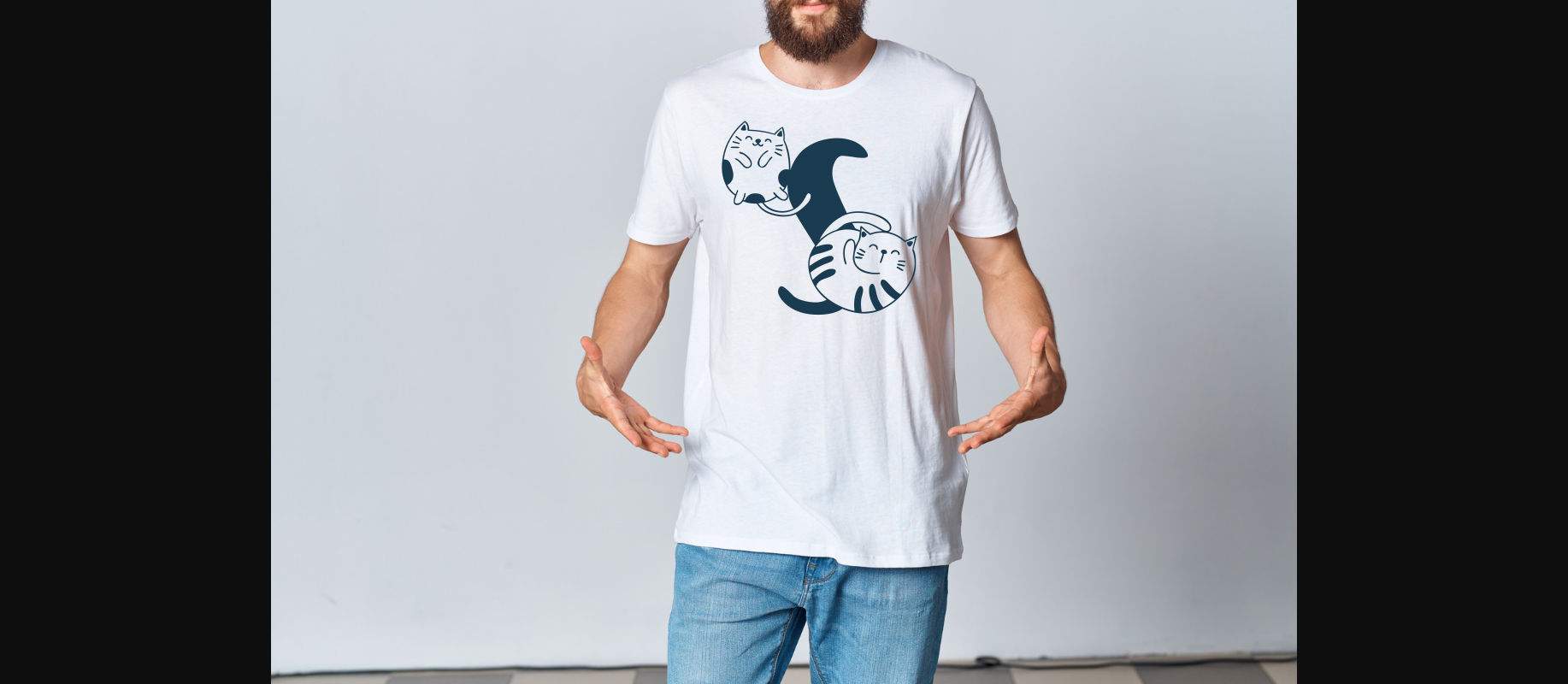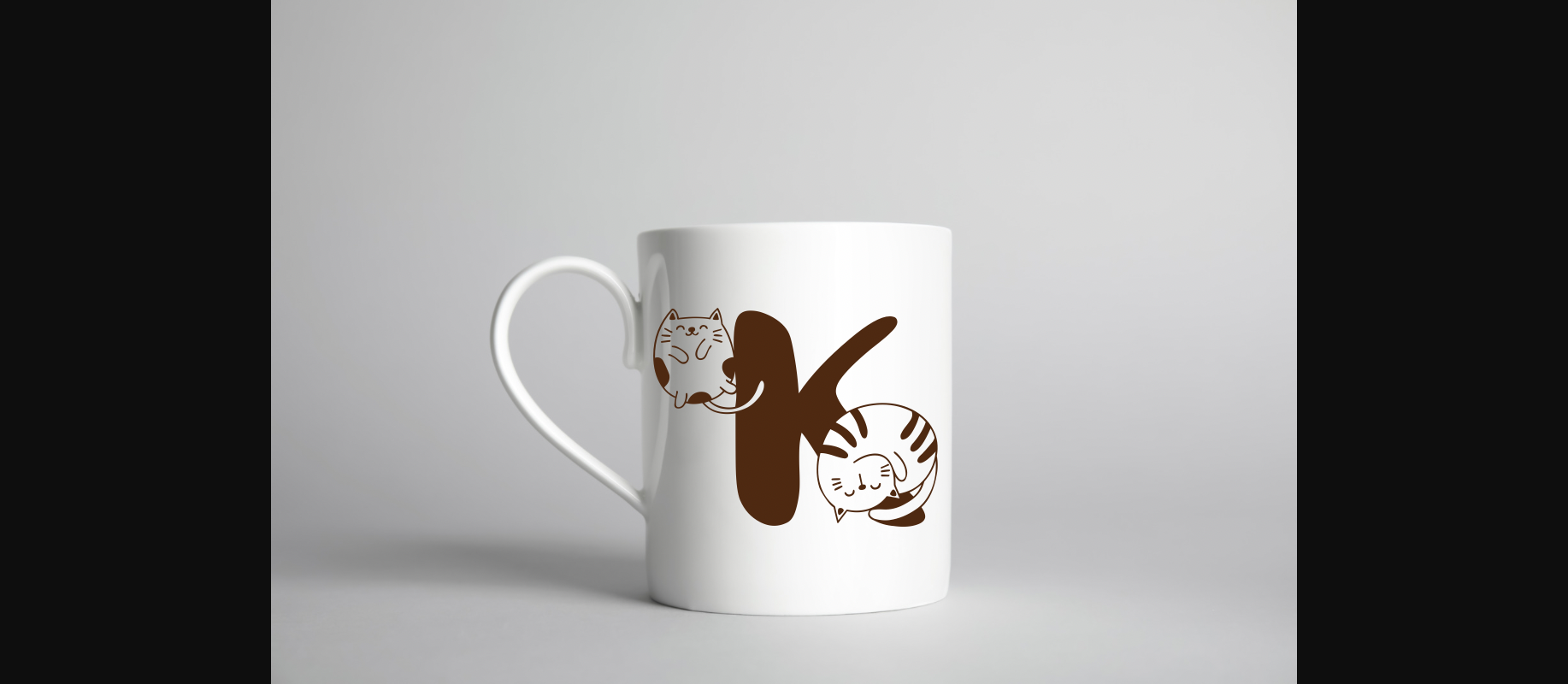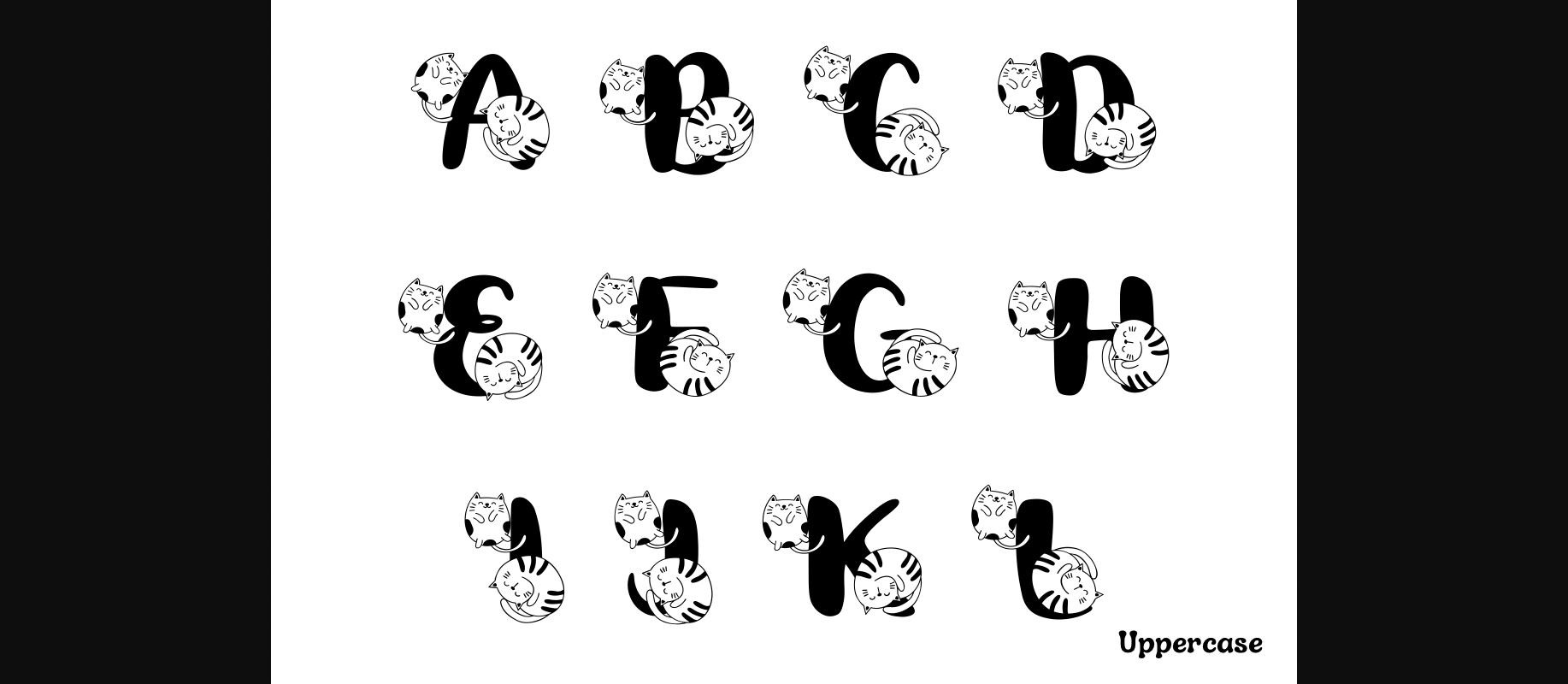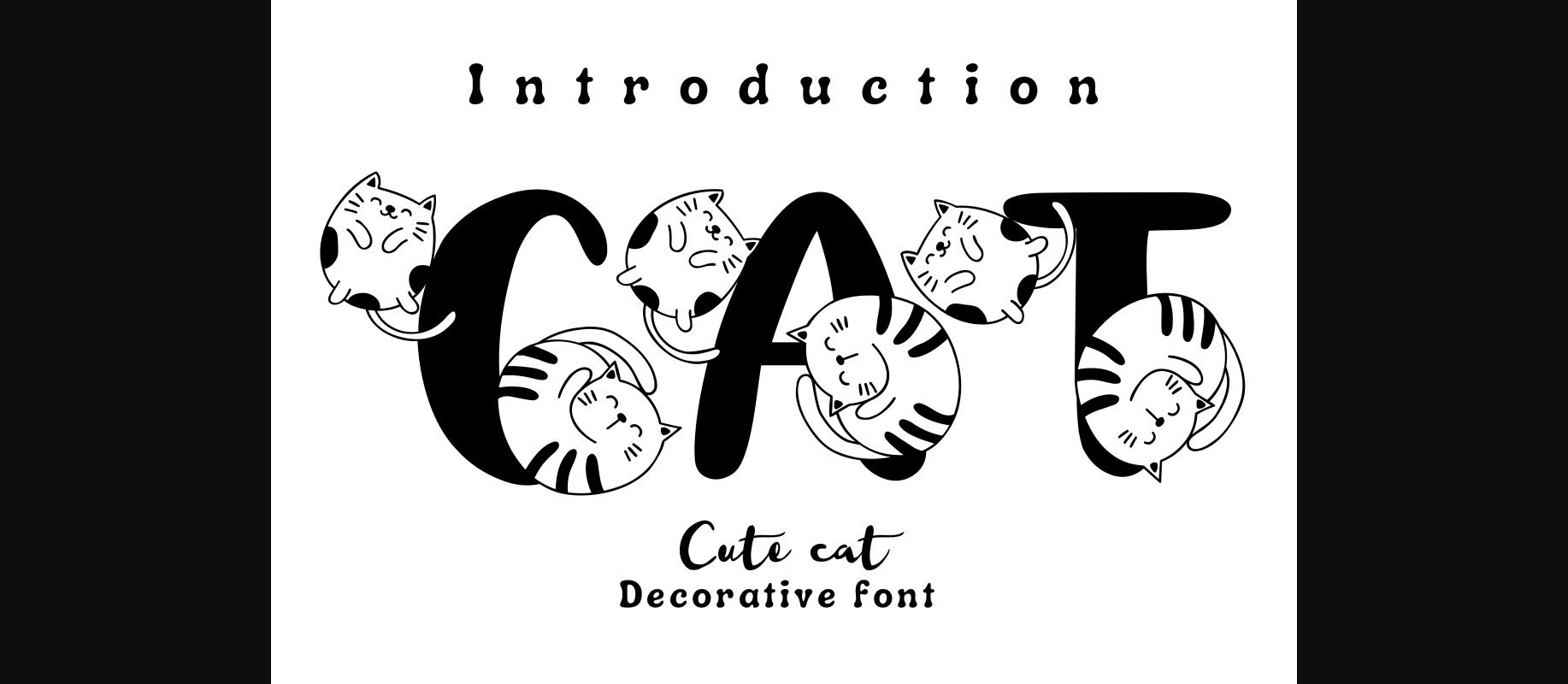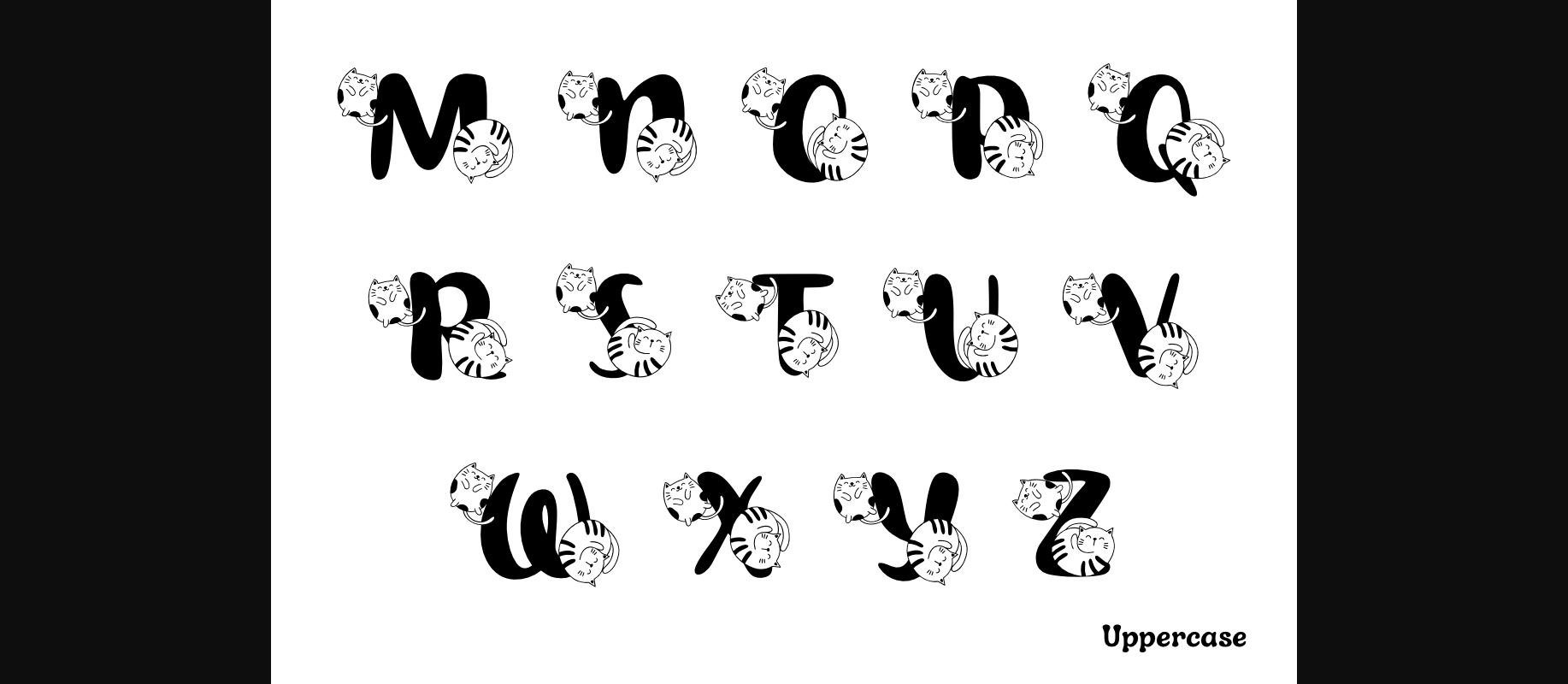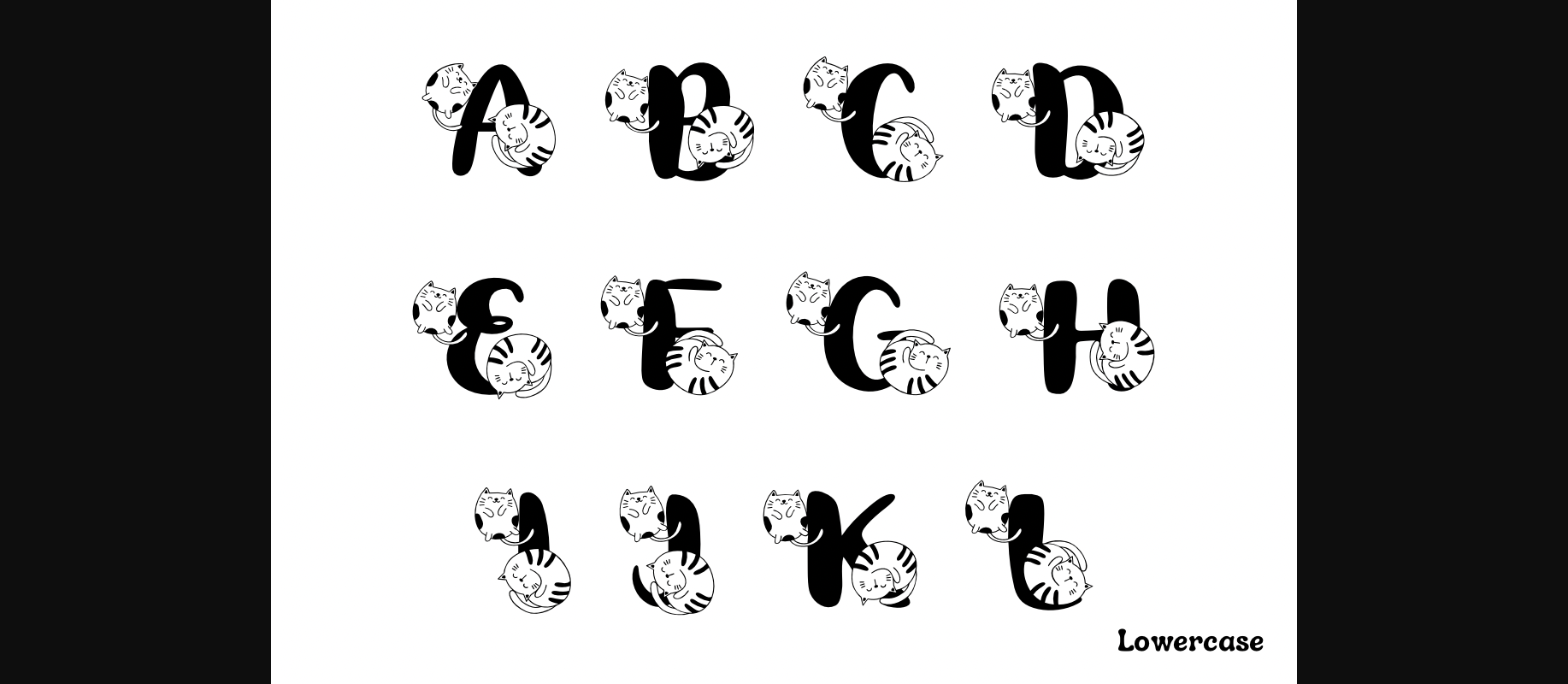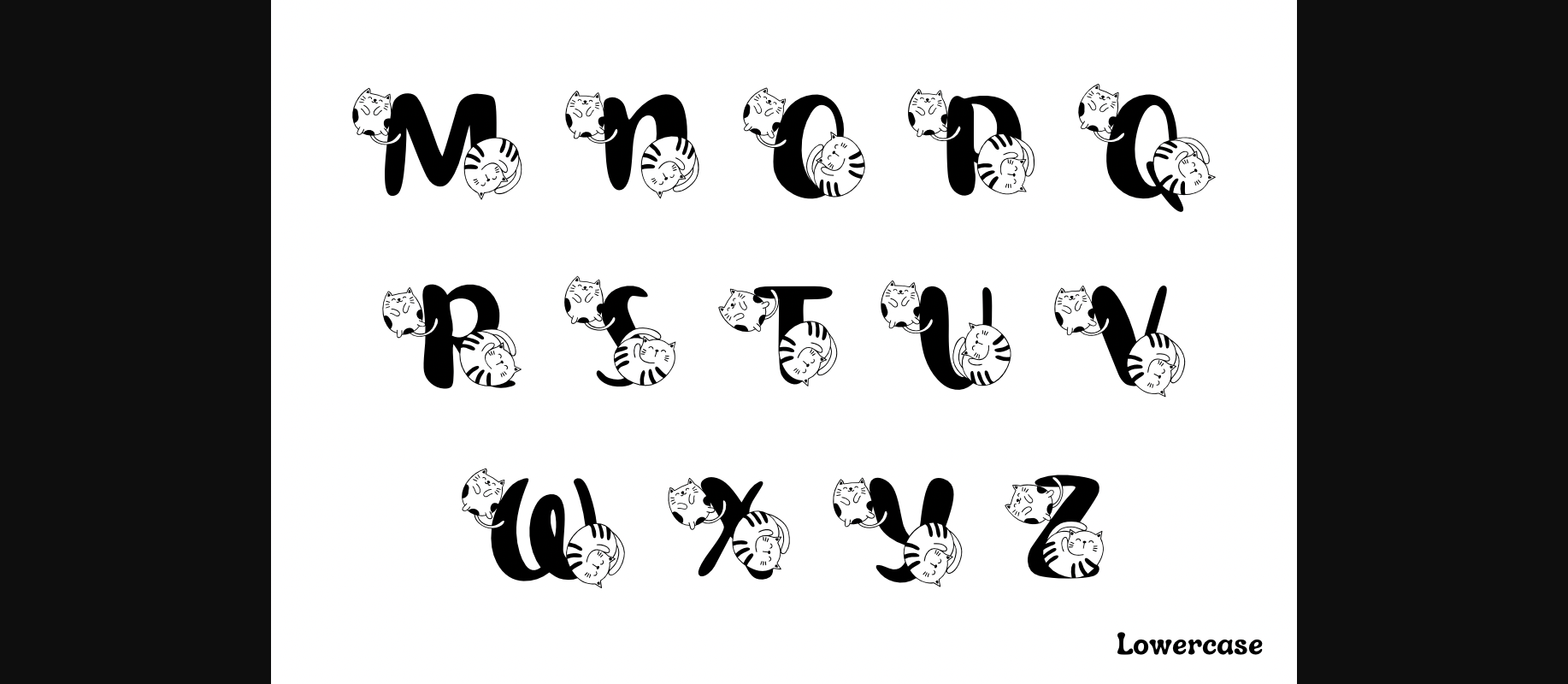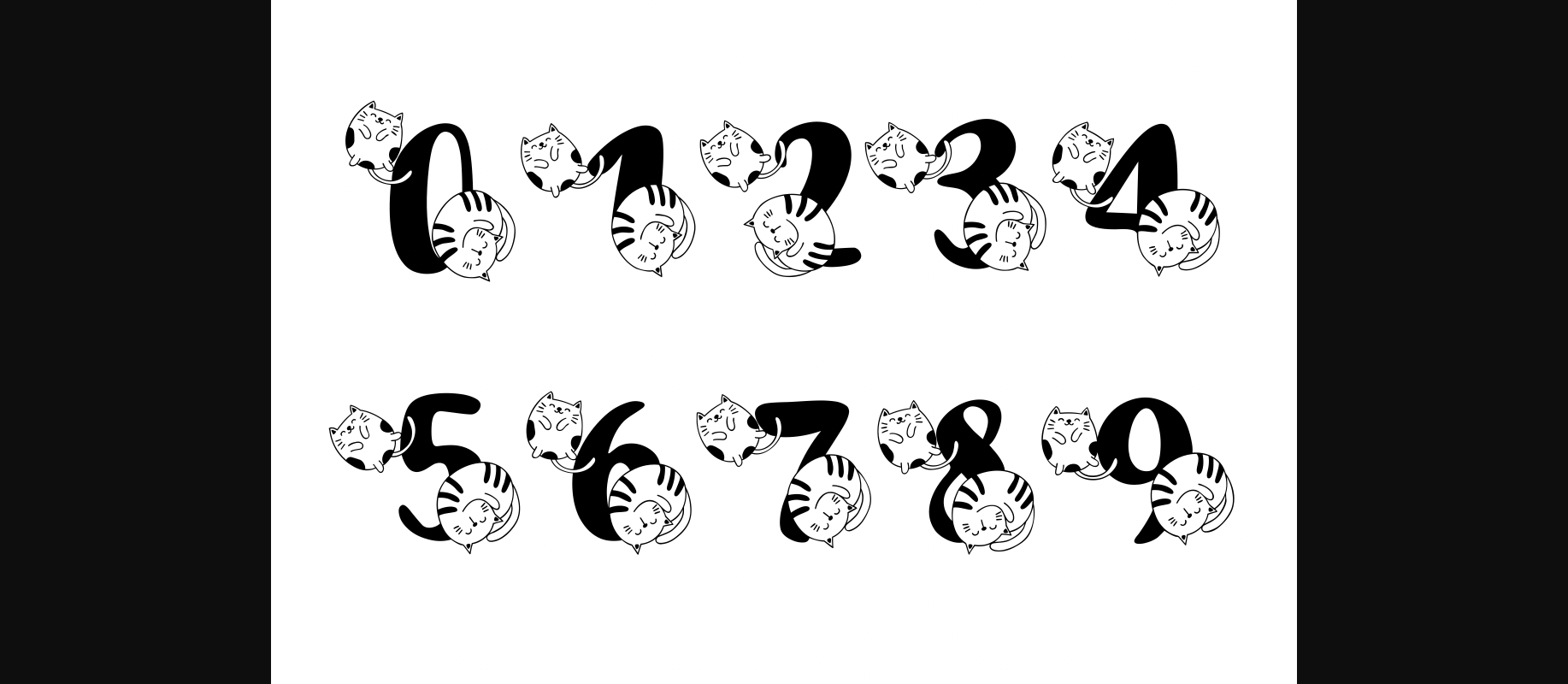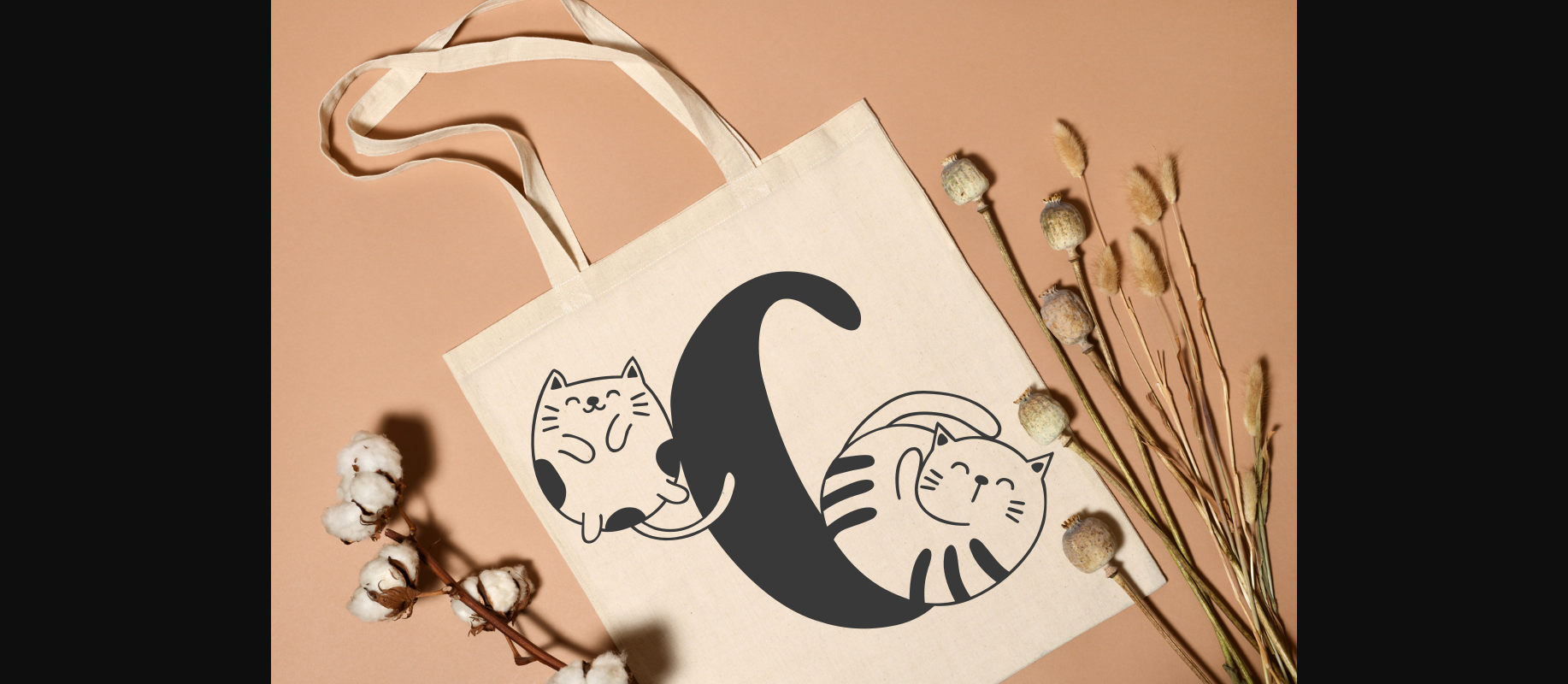
Cute Cat Font
About Cute Cat Font
Cute Cat is a decorative handwritten font. You can use it for taking notes, writing a diary or making greeting cards. However you can still use it for other designs such as banners content mugs cards shirts stationery social media posts and more!